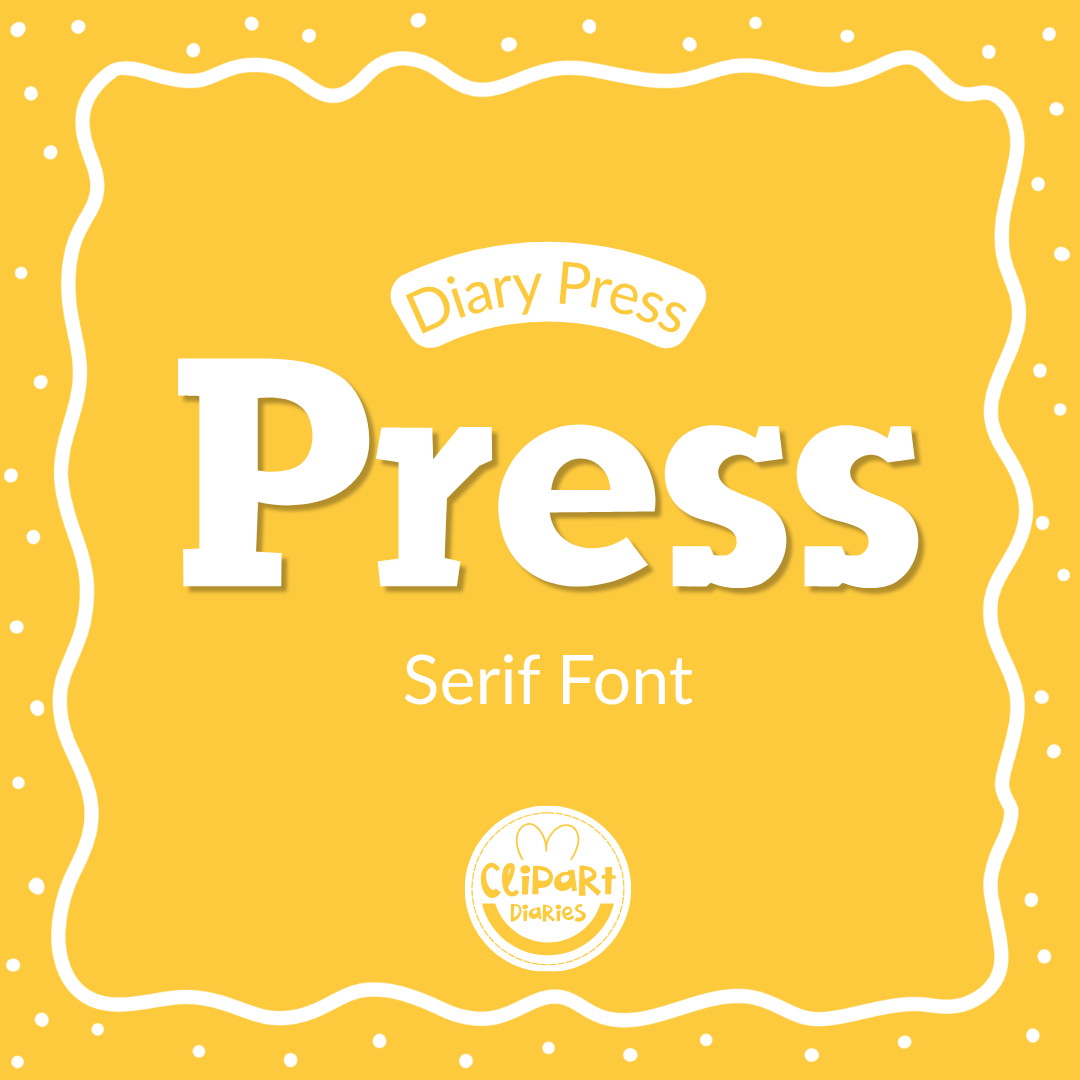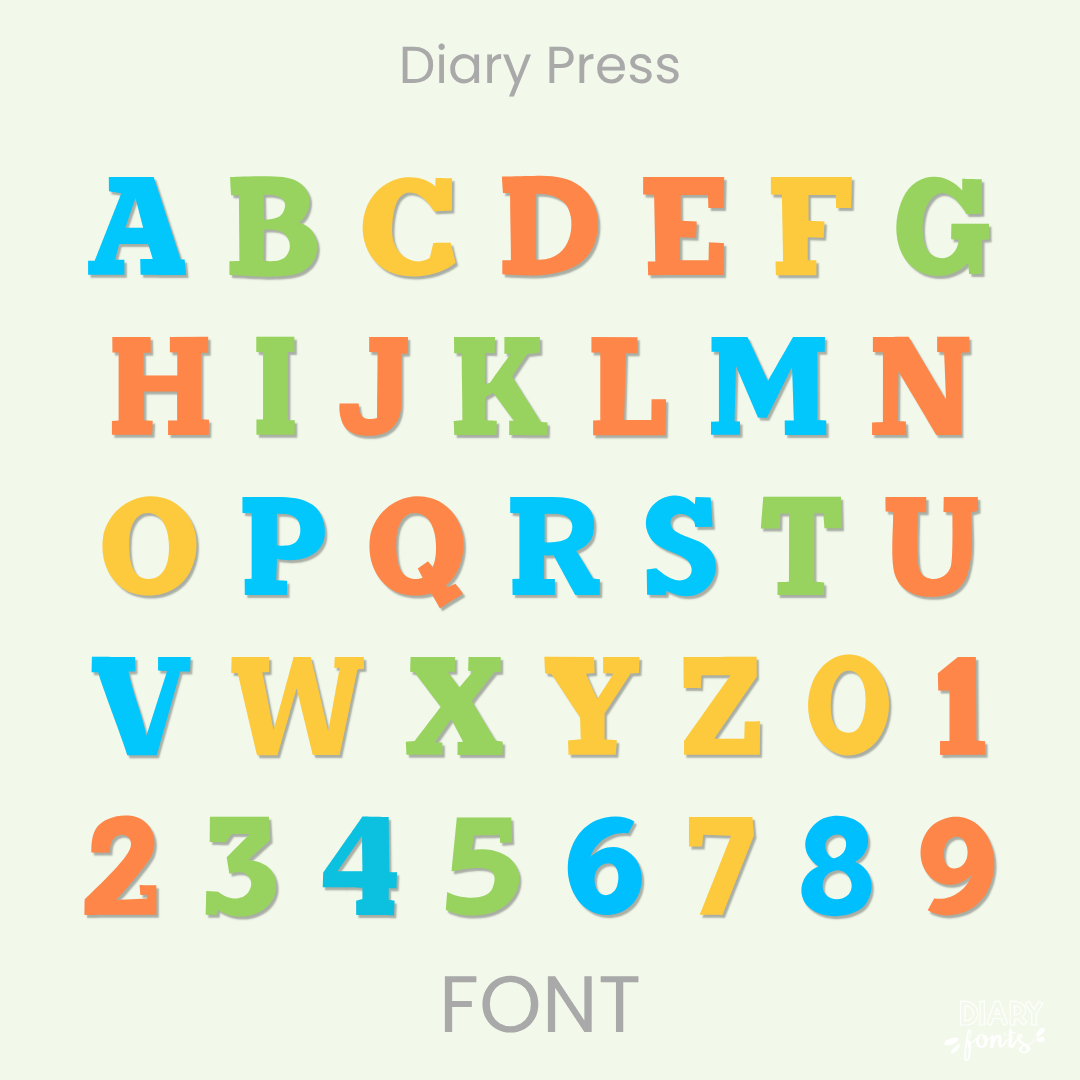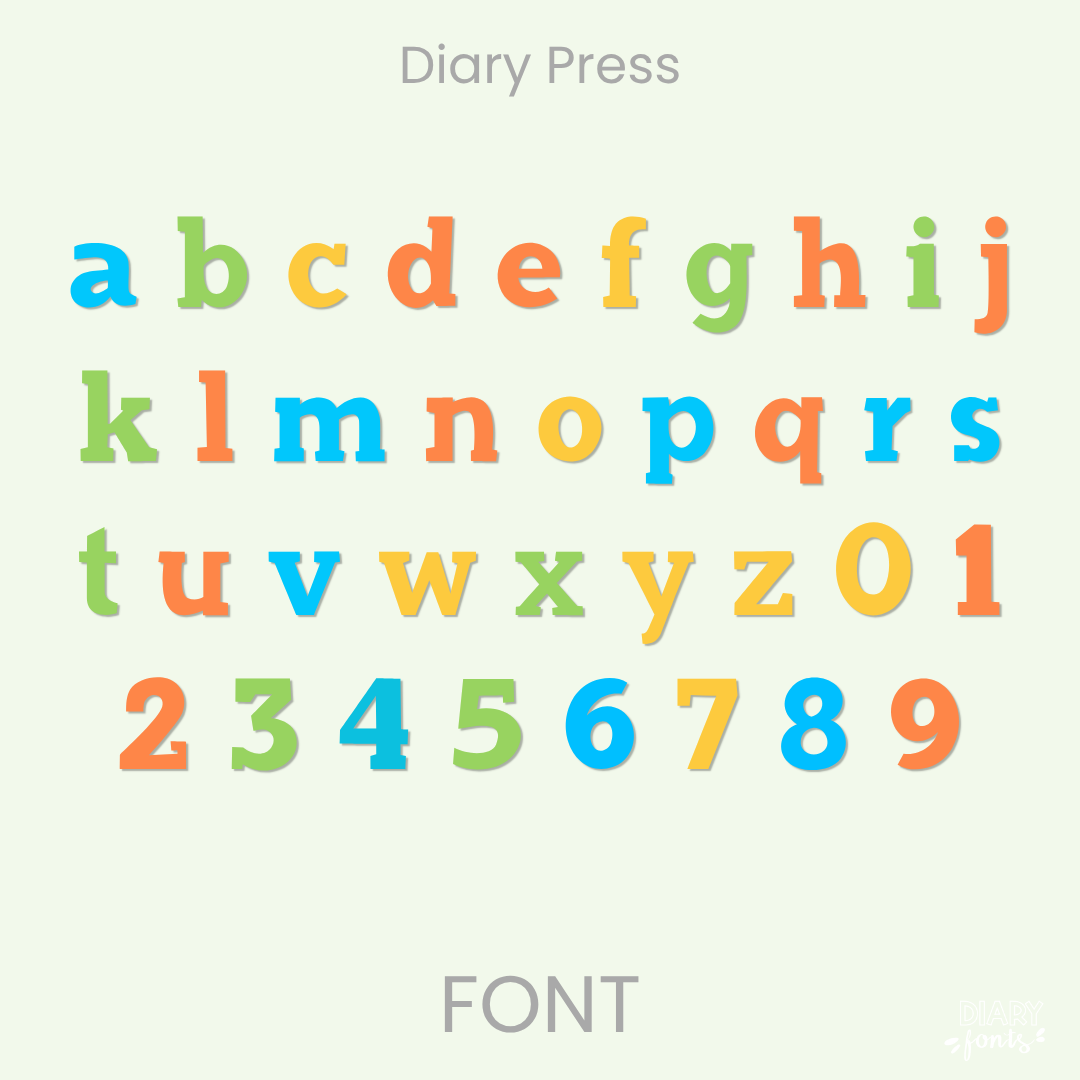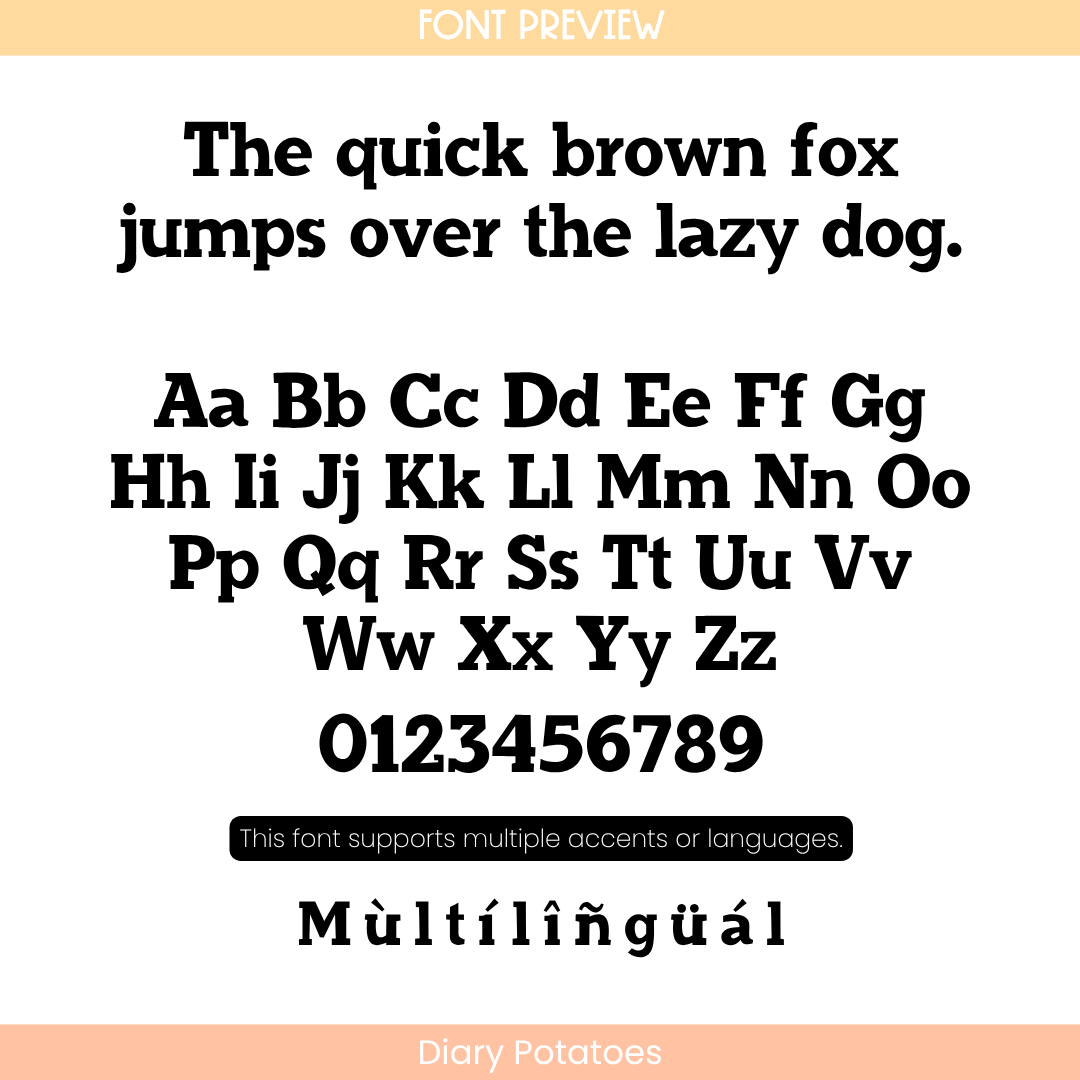
The Diary Press is a clean, hand-drawn serif font designed to bring a classic, structured, and legible look to classroom materials and educational designs.
Diary Press combines the timeless look of a traditional serif typeface with a subtle hand-crafted feel. Featuring small finishing strokes (serifs) on the ends of the letters, it provides an organized and formal appearance while maintaining an approachable, hand-drawn warmth. The letters sit evenly on the baseline with a consistent height, making the text highly structured, easy to track, and exceptionally clear for students to read.
This font is a practical choice for reading passages, history or social studies materials, textbook-style worksheets, instructional slide decks, and classroom labels where a neat, print-style aesthetic is needed. The character set includes a full set of uppercase and lowercase serif letters, numbers, and multiple accents to support different languages. It installs quickly and works smoothly across software like MS Office, Adobe Apps, and Canva, as well as on iPad design programs like GoodNotes and Procreate. It is well-suited for both personal classroom decoration projects and commercial teacher resource development.